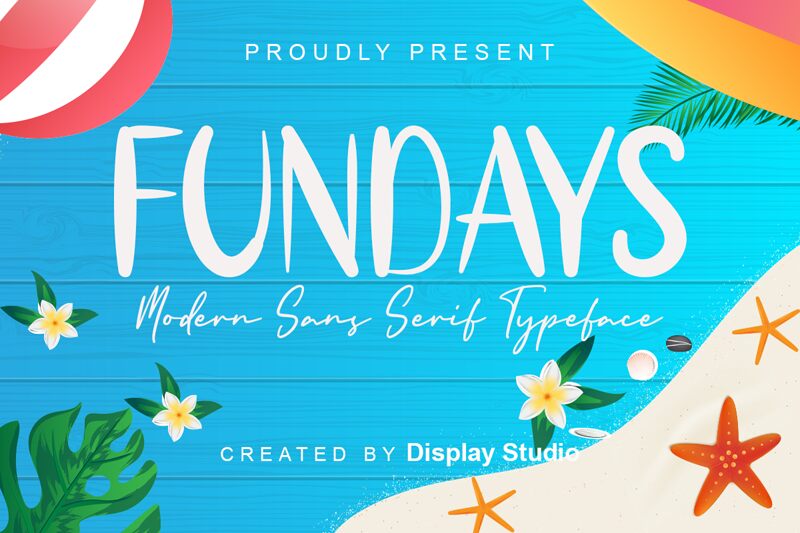
FUNDAYS
Welcome to FUNDAYS, the latest display font by Display Studio! This semi-condensed typeface is perfect for projects that require a playful yet sophisticated touch. With its clean lines and bold shapes, FUNDAYS is suitable for a wide range of creative projects, from children's books to modern logos. Its semi-bold font style lends itself well to headlines and titles, while its compact width makes it ideal for designs with limited space. Whether you're working on a branding project or creating eye-catching social media graphics, FUNDAYS is sure to make your designs stand out from the crowd. Try it out today!